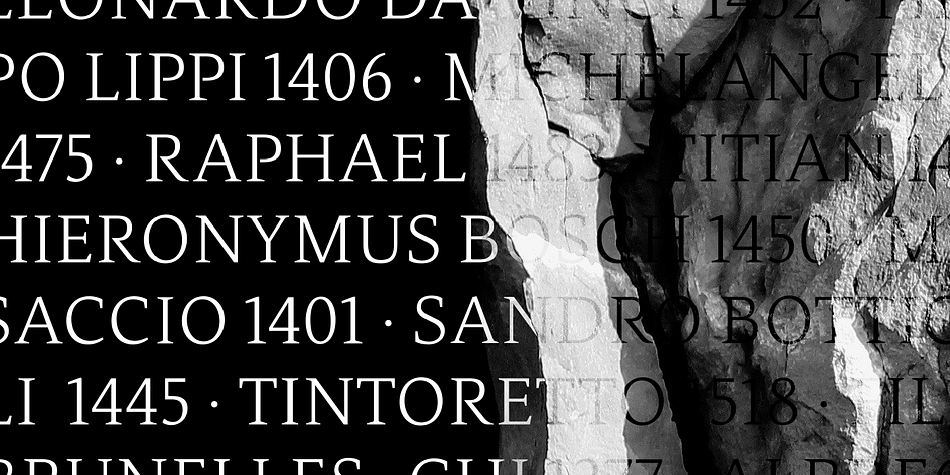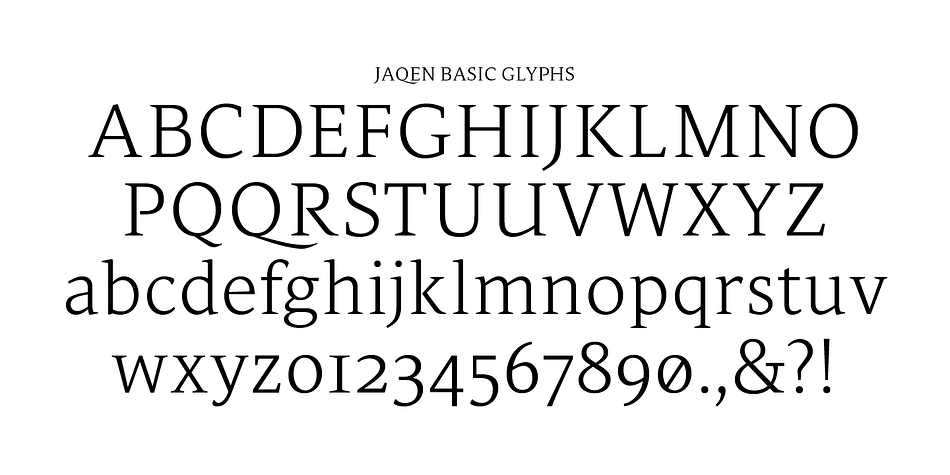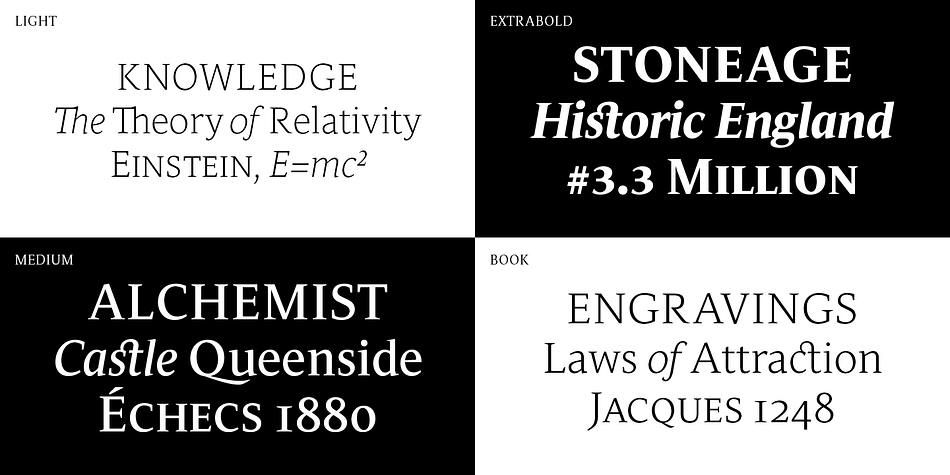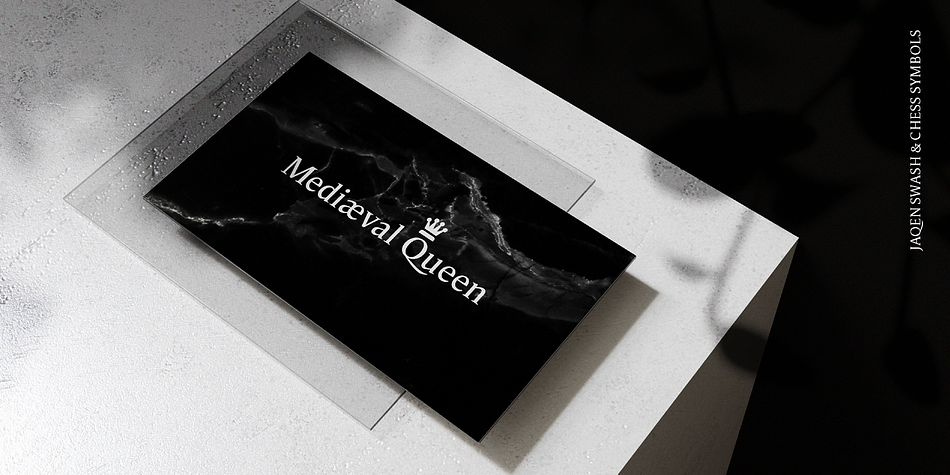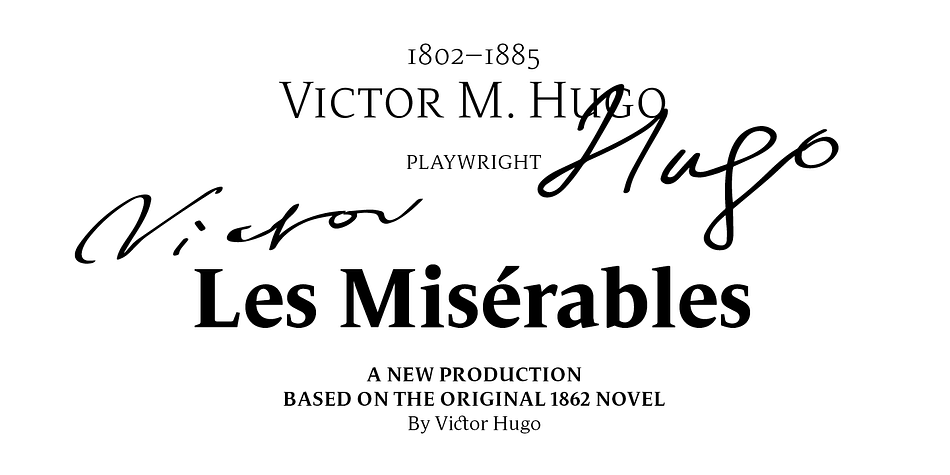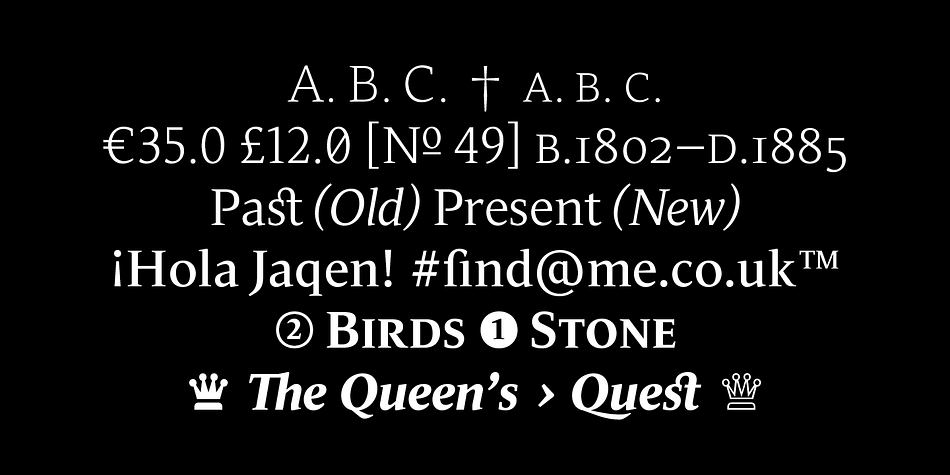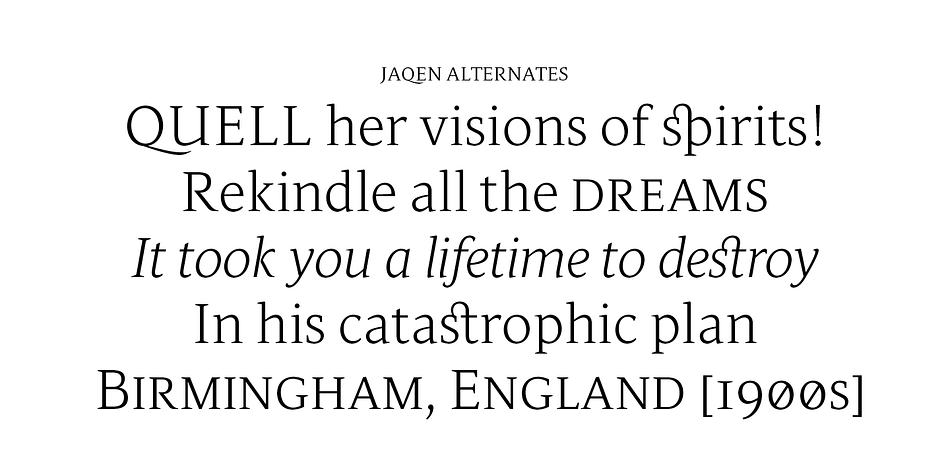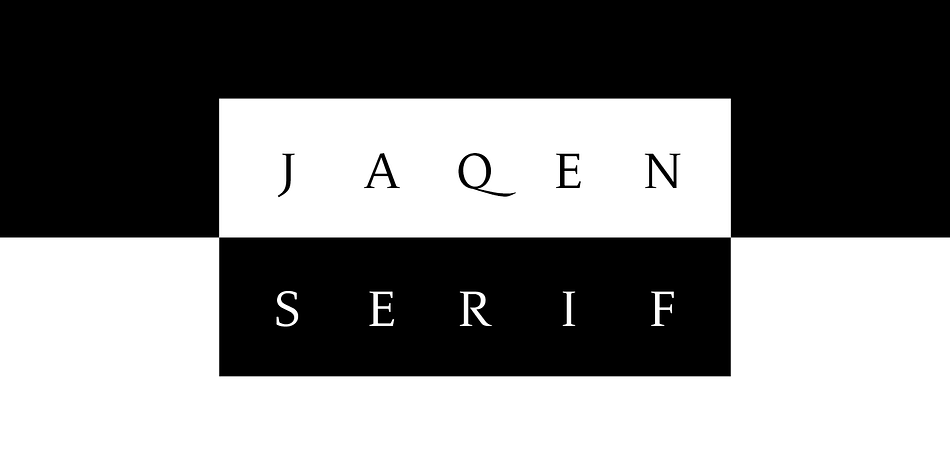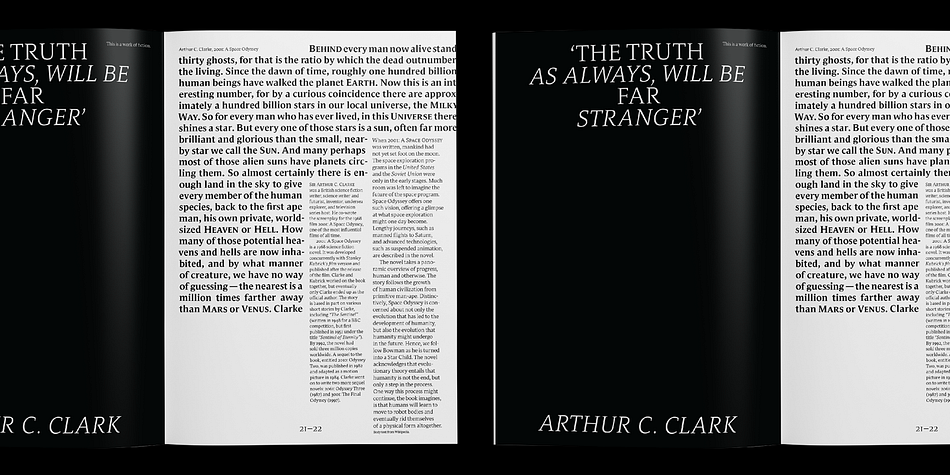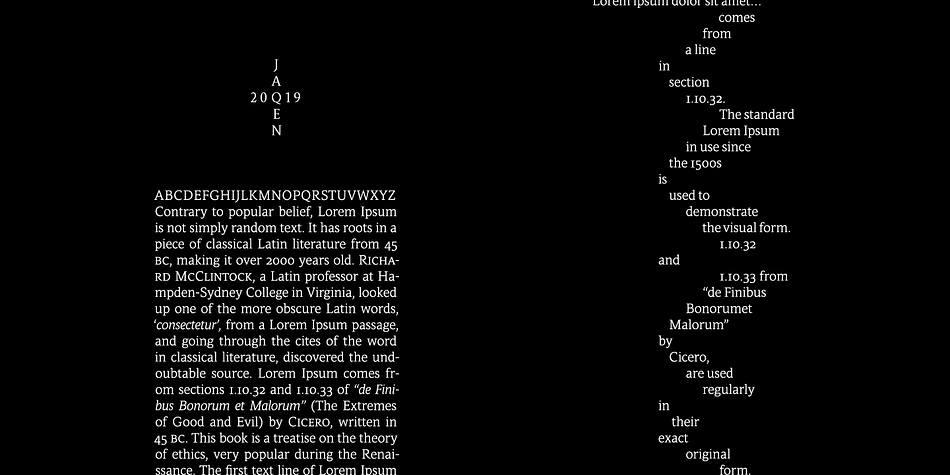
Designed by Jonathan Hill, Jaqen is a serif font family. This typeface has twelve styles and was published by The Northern Block.
Jaqen is a contemporary serif with a distinct aesthetic. Learning from historical methods of practice in metal types the design has been developed to improve reading text in modern applications. Initially drafted by hand to help promote a more natural letter shape, the typeface is then digitally produced adding a more angular expression with wedge-shaped forms, open apertures and subtle diagonal stress. The result is a well-balanced serif type family with the right rhythm, harmony and calm personality for creating readable text in the digital era.
Details include 978 characters, six weights with true italics, ten variations of numerals, opentype features nut fractions, stylistic swashes and alternates, ligatures, small caps, chess symbols and language support covering Western, South, Central Europe and Vietnamese.